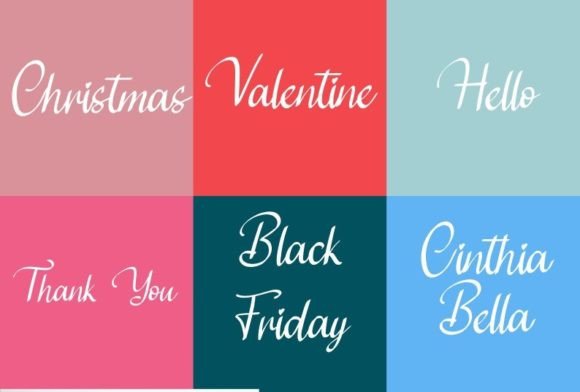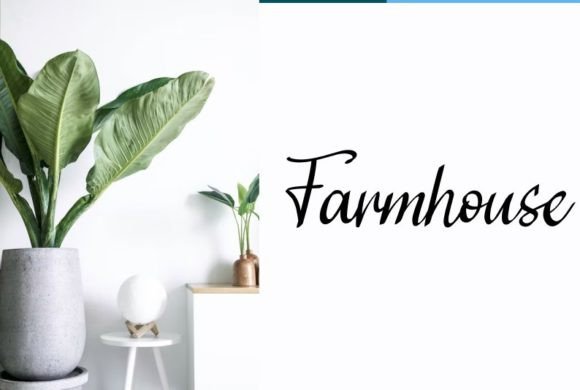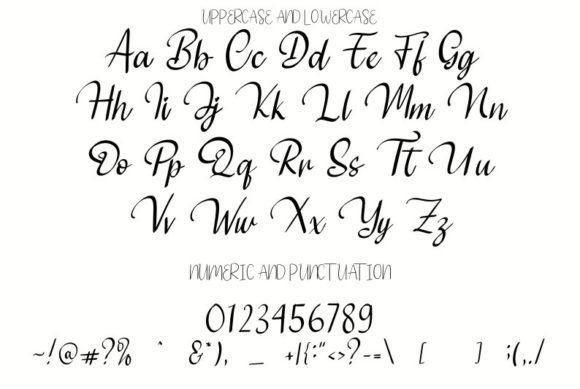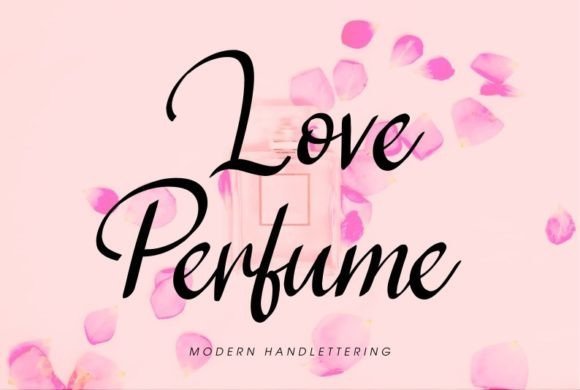
Introduction to Love Perfume Font
Love Perfume is a charming handwritten script font.
This gentle font will look gorgeous on a variety of design ideas It will add a joyful and romantic touch to each of your projects.